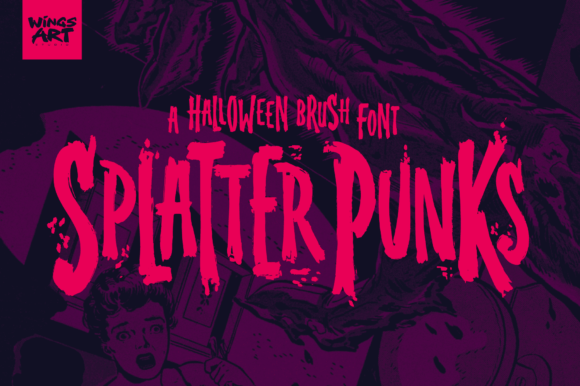
Get ready to unleash a wave of terror this Halloween with Splatterpunks Font - the ultimate font for movie posters and horror enthusiasts. Created by wingsart, this hand-drawn brush font is inspired by the blood-soaked pages of horror comics from the 1970s and 80s, bringing a nostalgic and spine-tingling tension to your designs.
With its textured, all-caps lettering, Splatterpunks Font captures the essence of fear and suspense, leaving your readers on the edge of their seats. Each stroke is meticulously crafted to evoke a sense of creeping dread, like the stretched look of a surprised cat. It's the perfect tool to add a diabolical touch to your Halloween-themed projects or any horror-related artwork.
Imagine the impact of using Splatterpunks Font on your movie posters. The jagged edges and splatters of blood create a visually striking and chilling effect, instantly capturing the attention of your audience. This font speaks to the inner horror fan in everyone, evoking feelings of excitement, anticipation, and the thrill of the unknown.
Not only does Splatterpunks Font offer a captivating aesthetic, but it also provides versatility in its application. From movie titles to book covers, album artwork to event promotions, this font is a powerful tool for any creative project that seeks to leave a lasting impression. Its unique style sets it apart from traditional fonts, making it a standout choice for designers who want to make a bold statement.